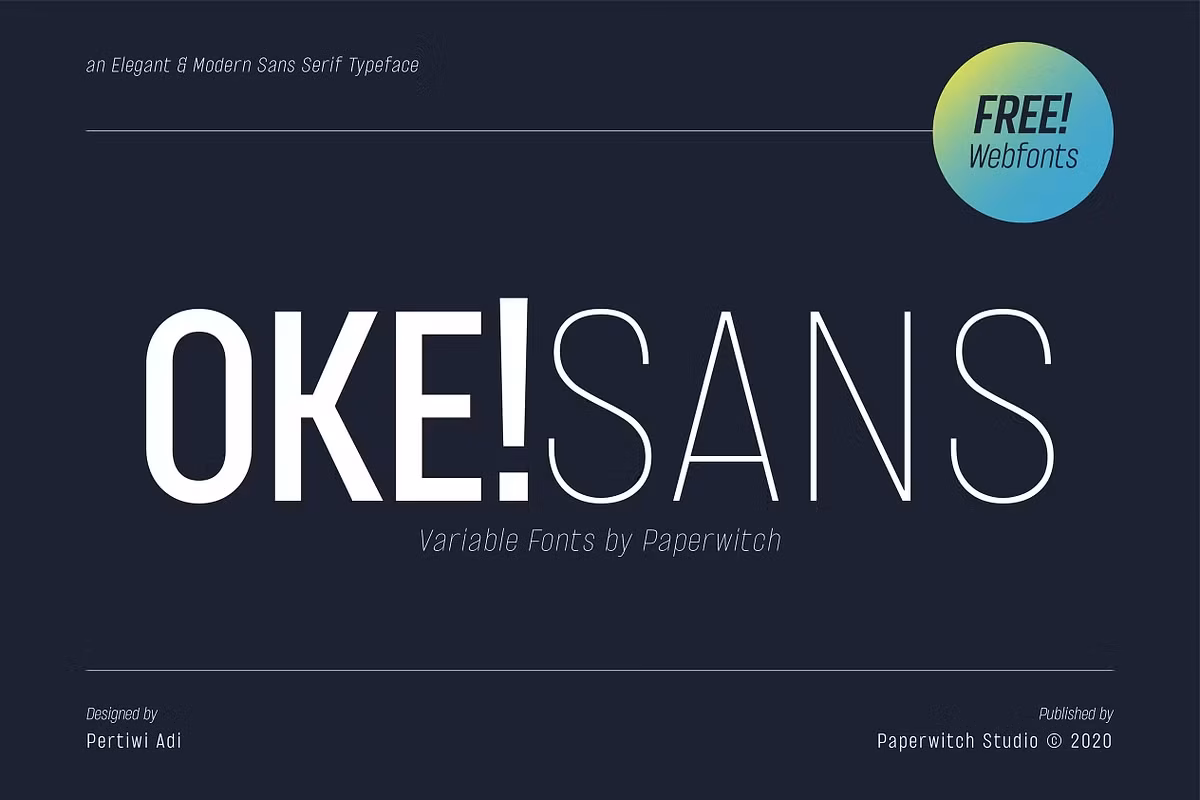
Please note that you must purchase this font family for commercial use. You can download OKE! Sans Family (Variable Fonts) for free, strictly for personal testing purposes only. OKE! Sans is a modern, versatile sans-serif font family that offers variable fonts for ultimate flexibility in design. With a clean, geometric design, OKE! Sans Family Free Download is perfect for a wide range of creative projects, including branding, websites, editorial layouts, logos, and more.
The variable font allows you to customize weights, widths, and other properties, giving you full control over your typography. This flexibility makes it ideal for both large and small designs, whether you're working on print materials or digital interfaces. The family includes uppercase and lowercase letters, numerals, punctuation, and multilingual support, ensuring broad usability.
Whether you're designing a sleek website, a modern brand identity, or professional marketing materials, OKE! Sans provides the clarity and modernity your projects need.